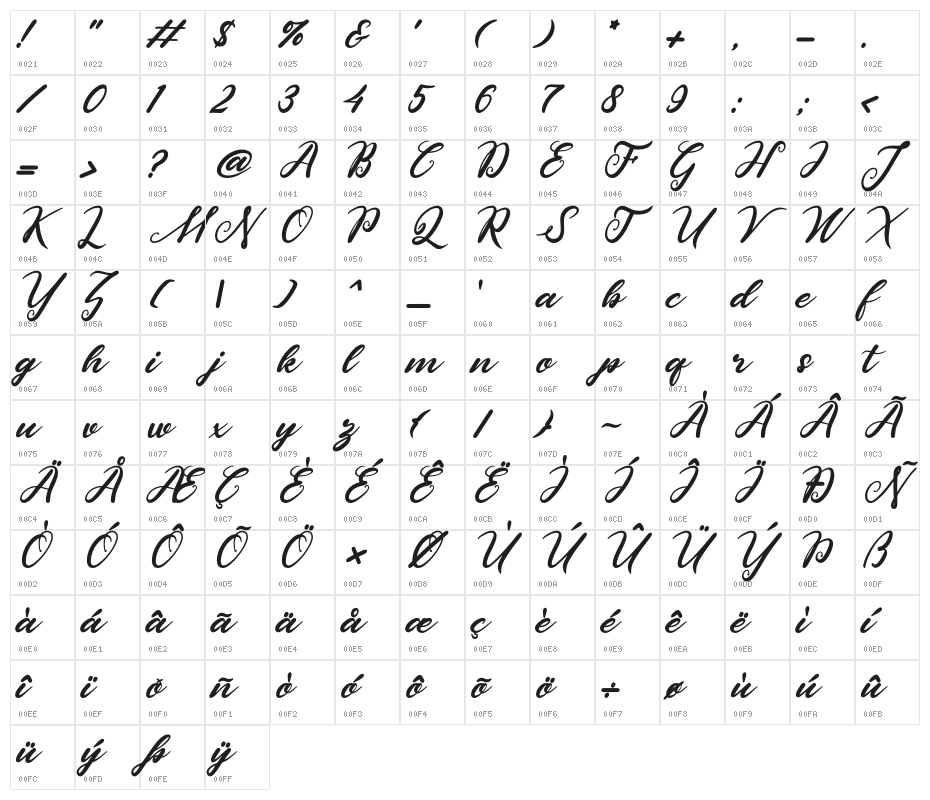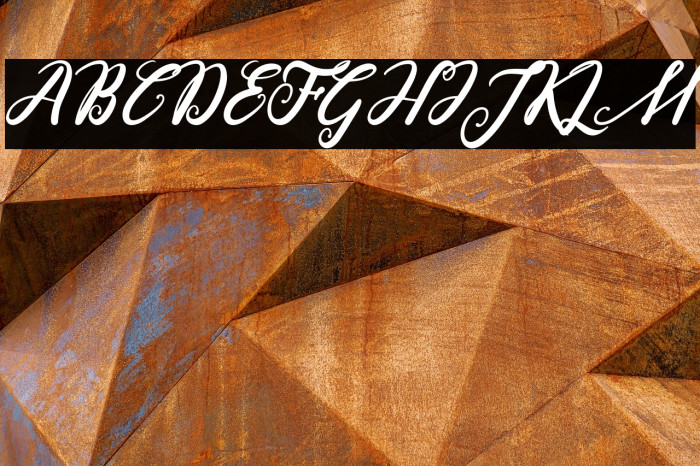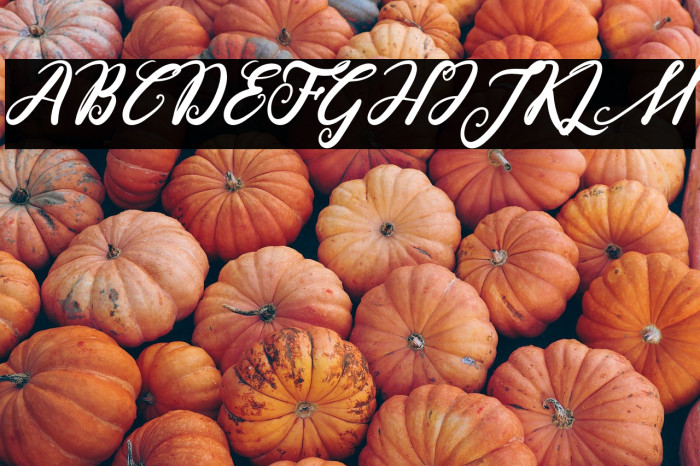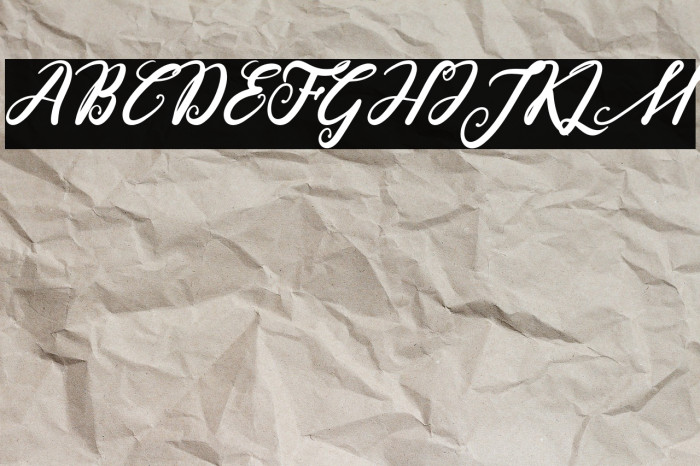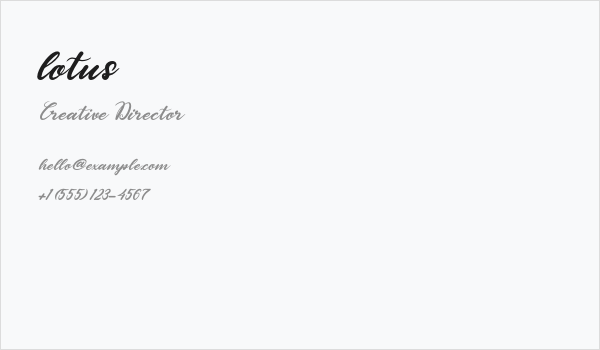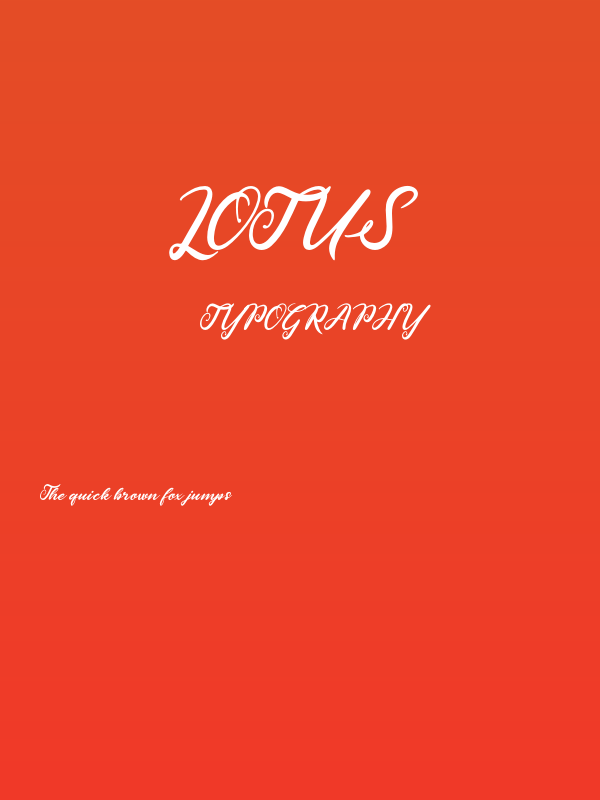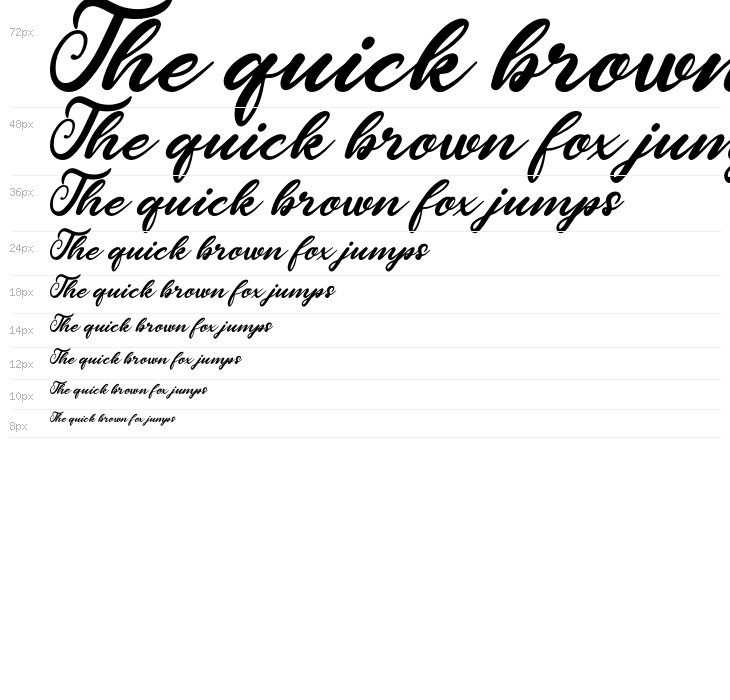
lotus Font
lotus Description
This font features an elegant and flowing script style, characterized by its smooth, cursive strokes and graceful loops. The uppercase letters are ornate, with elaborate swashes that add a touch of sophistication. The lowercase letters maintain a consistent flow, enhancing readability while retaining a decorative flair. Numbers and special characters are designed with the same fluidity, ensuring a cohesive look across all elements. This font exudes a sense of elegance and formality, making it ideal for projects that require a touch of class and refinement.
| Overall Style | Elegant, Formal |
| Use Case | Headlines, Invitations, Branding |
| Proposed Projects | Ideal for wedding invitations, elegant branding, formal event programs, and luxury product packaging. |